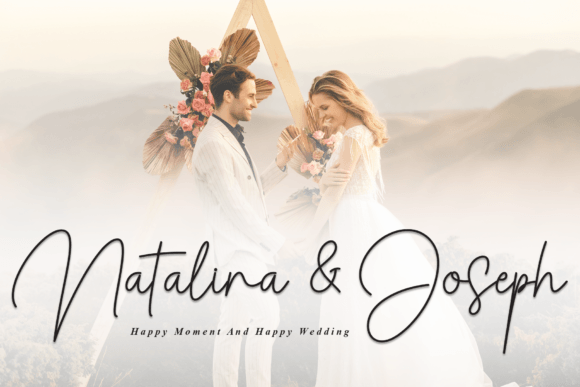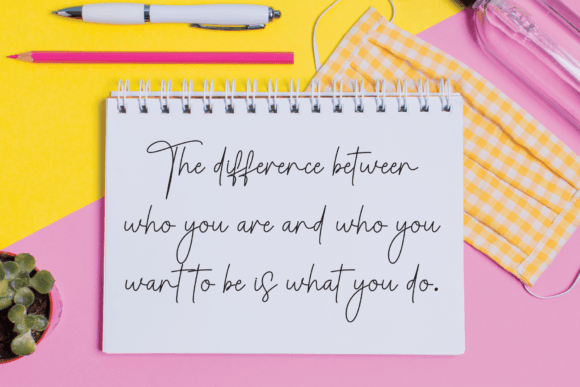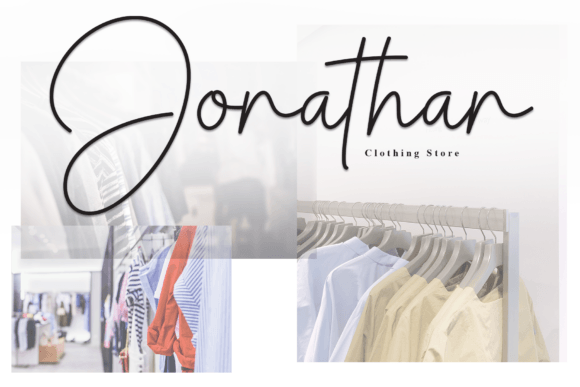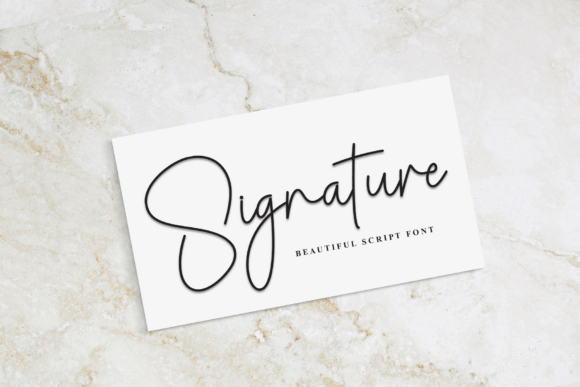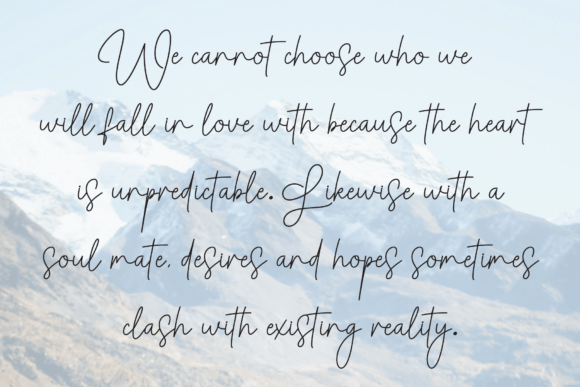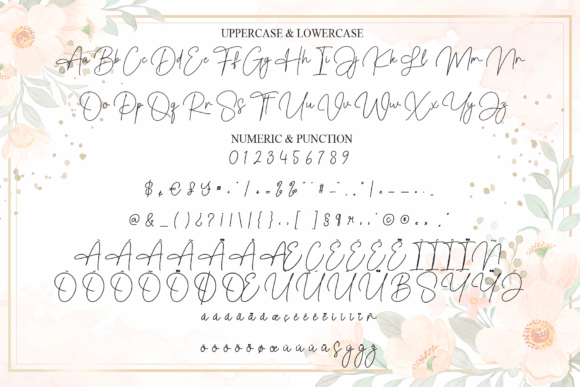
Introduction to Flowers Decoration Font
Have you ever stared at a blank page, searching for the perfect font to bring your creative project to life? I know I have! It’s that moment of inspiration when the words “just right” pop into your mind, and you can almost see your design unfold before your eyes. For me, that moment came when I discovered the enchanting Flowers Decoration Font, a beautiful handwritten font that captures the essence of nature.
What sets this font apart is its unique blend of soft curves and natural shapes, making it a perfect design resource for any project that needs a touch of warmth and elegance. Whether you’re creating an invitation, a greeting card, or a digital design, the Flowers Decoration Font will add a charming and artistic touch that’s sure to impress. With its high quality and transparent background, this font is a must-have for any designer looking to elevate their work.
Key Features of Flowers Decoration Font
- High-quality design resource ideal for creative projects, including invitations, greeting cards, and digital art.
- Unique, hand-drawn style with intricate details, perfect for adding a touch of elegance and sophistication to your designs.
- Includes a variety of flowers and foliage elements, allowing for endless customization options and creative possibilities.
- Transparent background, making it easy to overlay on top of other images or designs without any background distractions.
Honest Review: Flowers Decoration Font
I recently stumbled upon the Flowers Decoration Font, and I must say it’s been a game-changer for my creative projects. The font is a high-quality design resource that offers a beautiful and delicate touch to any design. ✨
- One of the standout features of this font is its transparent background, making it easy to combine with other design elements.
- The font is highly versatile and can be used for a wide range of creative projects, from wedding invitations to social media graphics.
However, I do have a few minor complaints. ⚠️
- The font may not be suitable for projects that require bold or dramatic text, as it’s more delicate and ornate.
- Some users may find the font to be a bit too intricate or detailed, which can make it difficult to read at small sizes.
Overall, I’m thoroughly impressed with the Flowers Decoration Font. It’s a fantastic design resource that adds a touch of elegance and sophistication to any project. If you’re looking for a high-quality font to elevate your creative projects, I highly recommend giving this a try!
For the best results, use the Flowers Decoration Font on a transparent background to make it stand out in your design. This font is perfect for creative projects that require a touch of elegance and sophistication.
The Flowers Decoration Font is commonly used for wedding invitations, baby showers, and other special events. It’s also great for adding a decorative touch to blog posts, social media graphics, and marketing materials.
Yes, you can modify the Flowers Decoration Font to fit your design needs. Since it’s a vector-based font, you can scale it up or down without losing any quality. You can also use design software like Adobe Illustrator to edit the font and create custom designs.